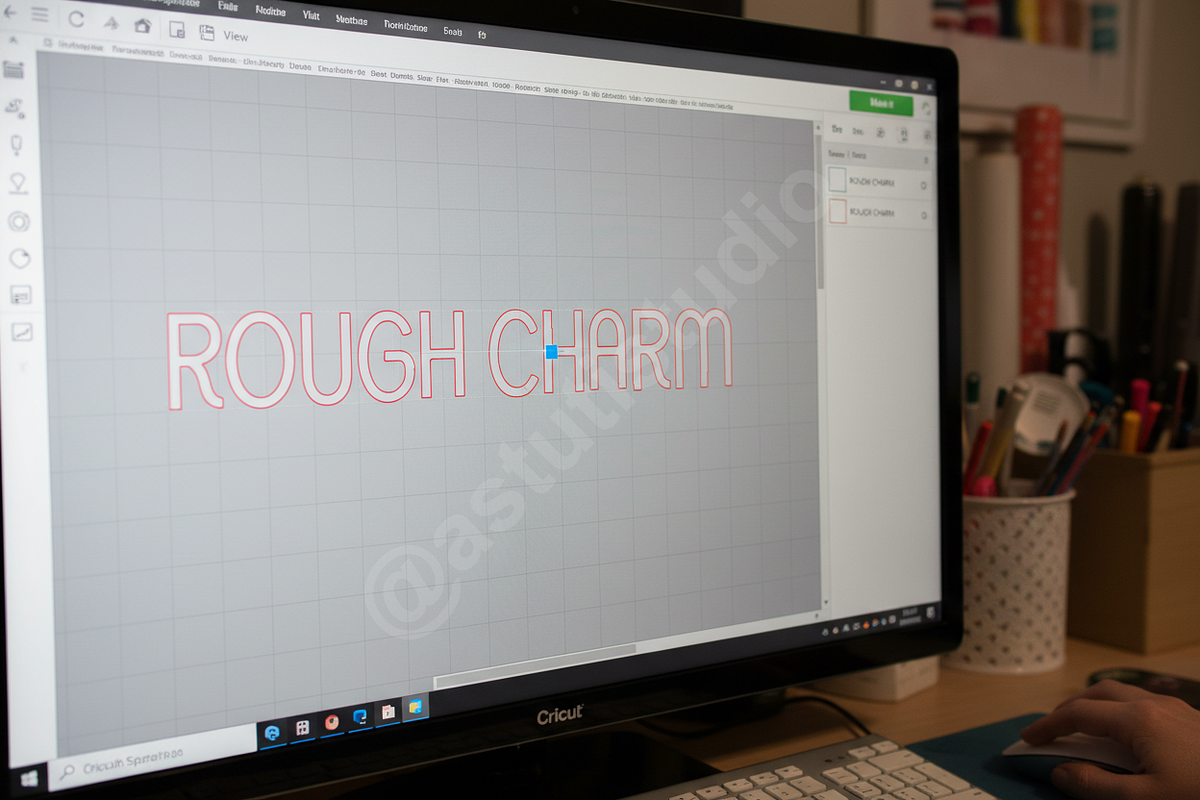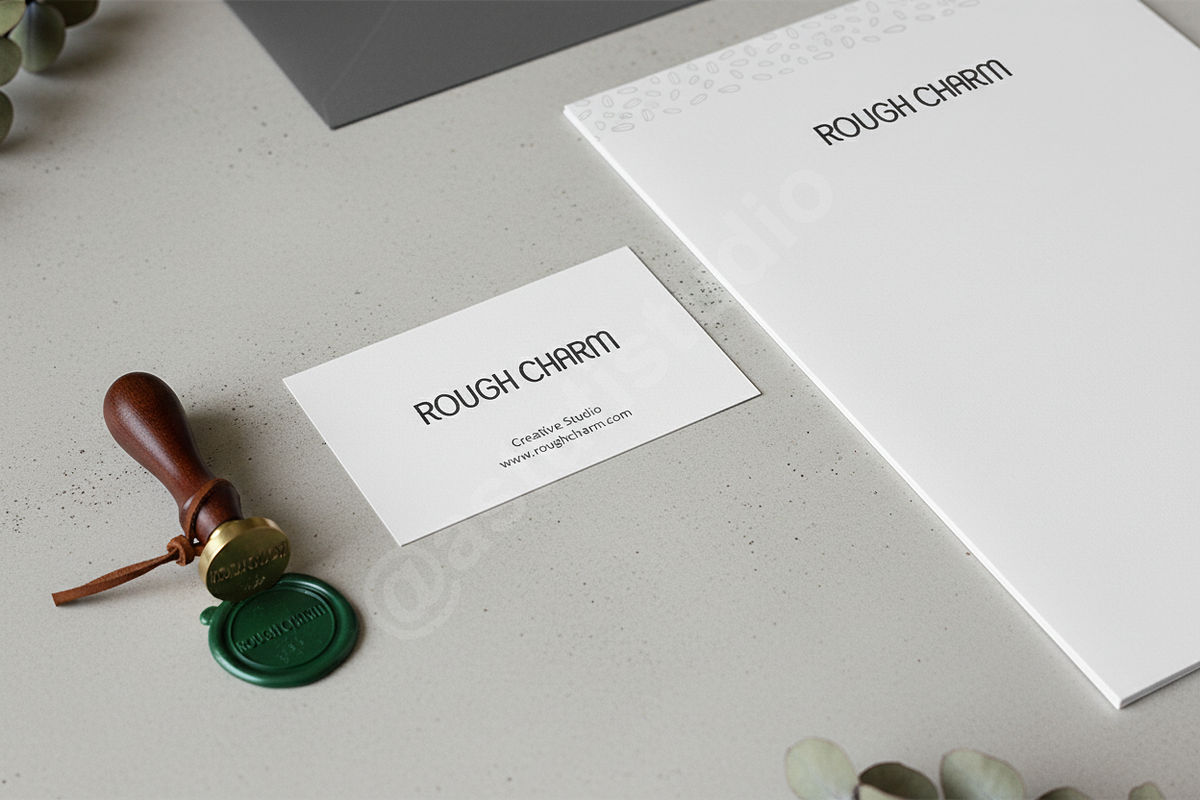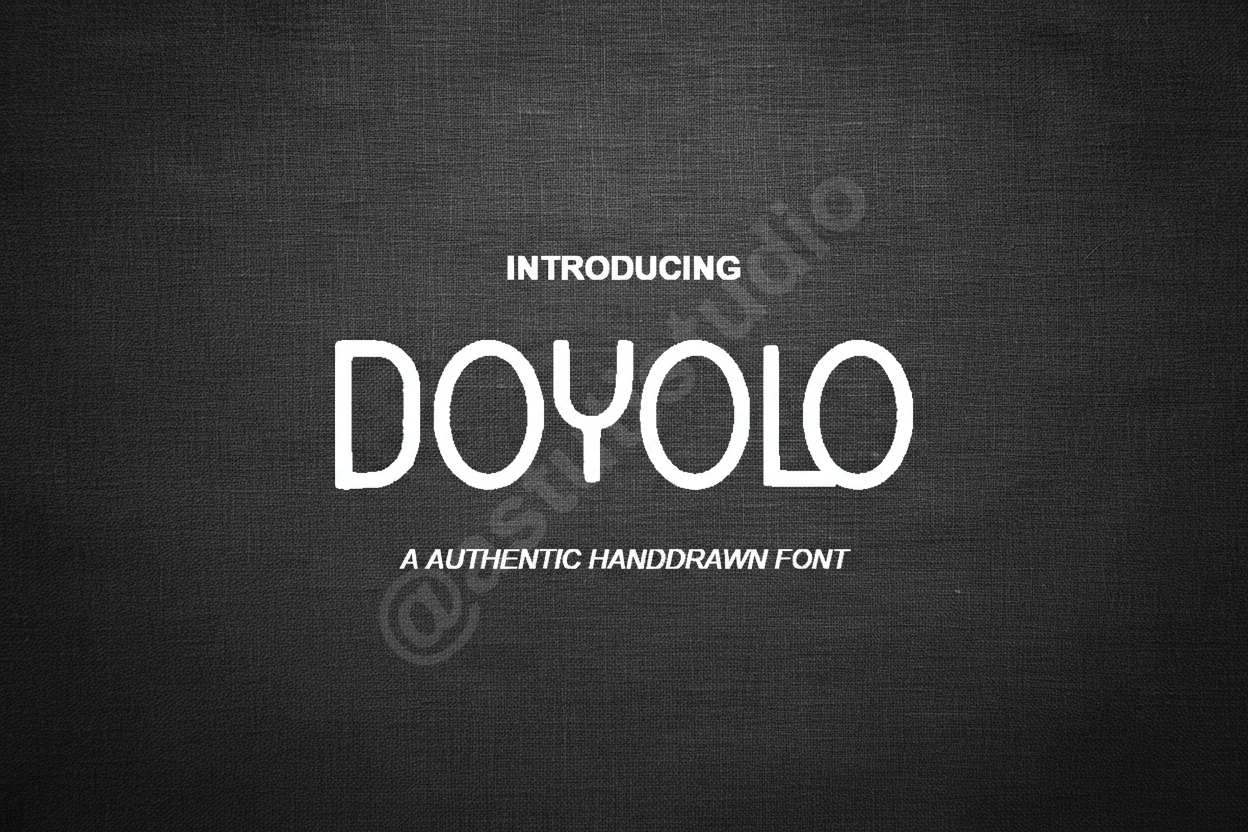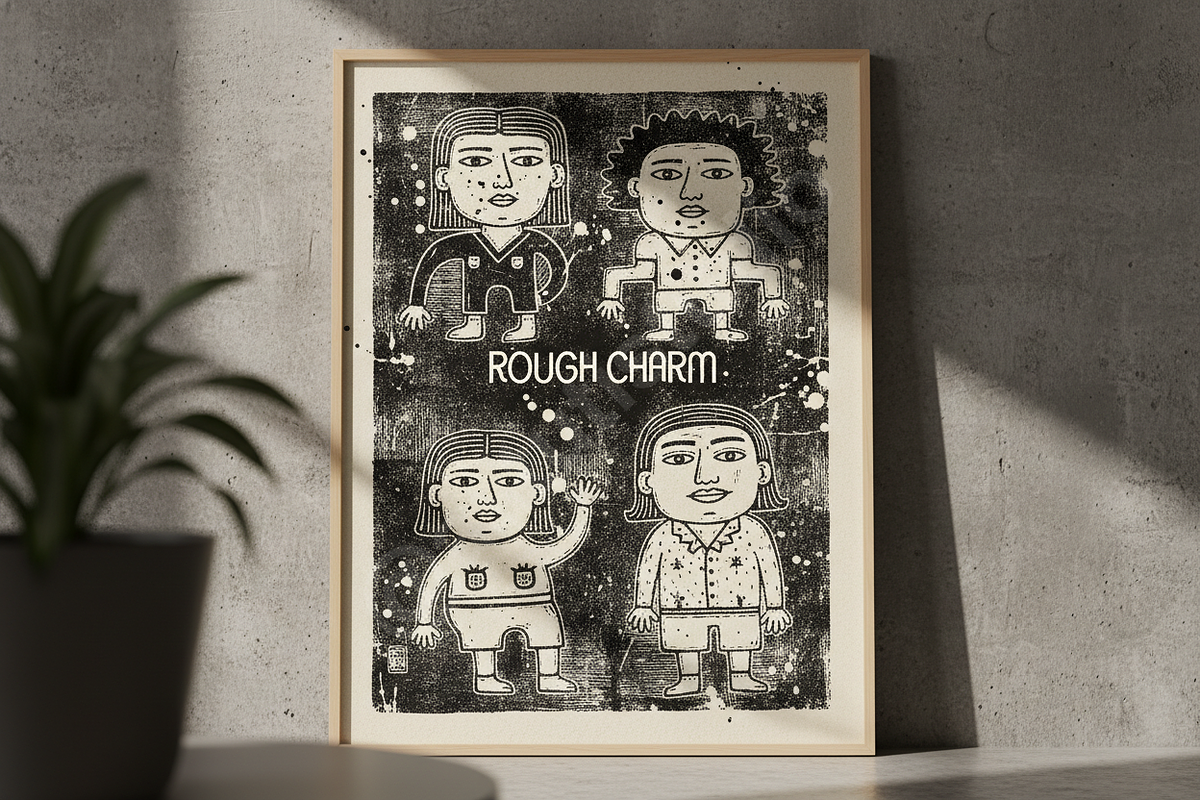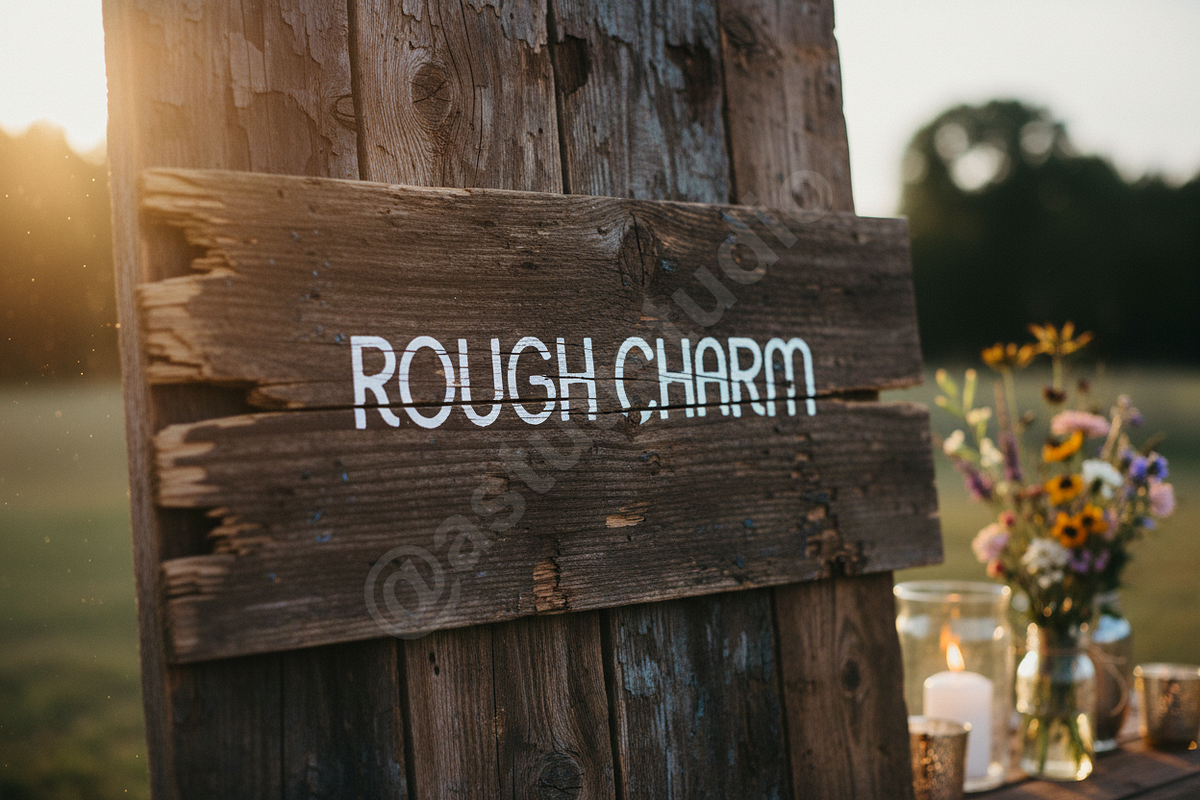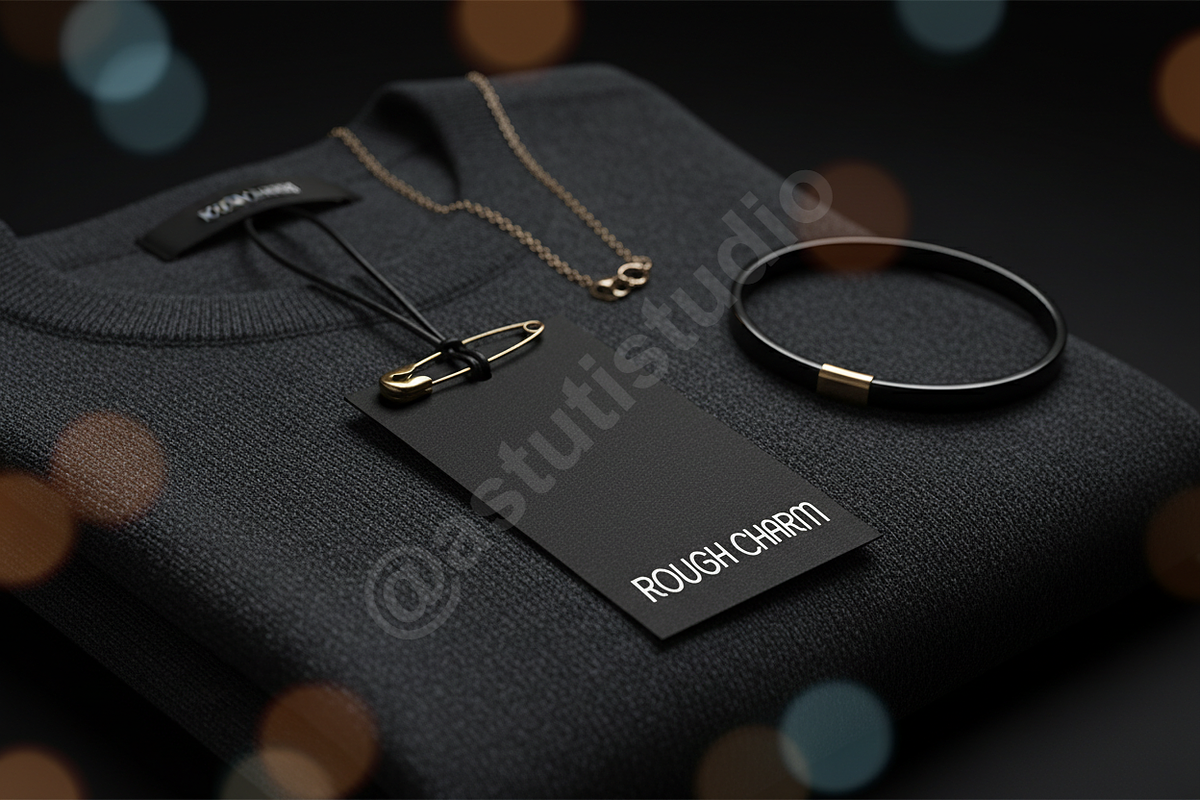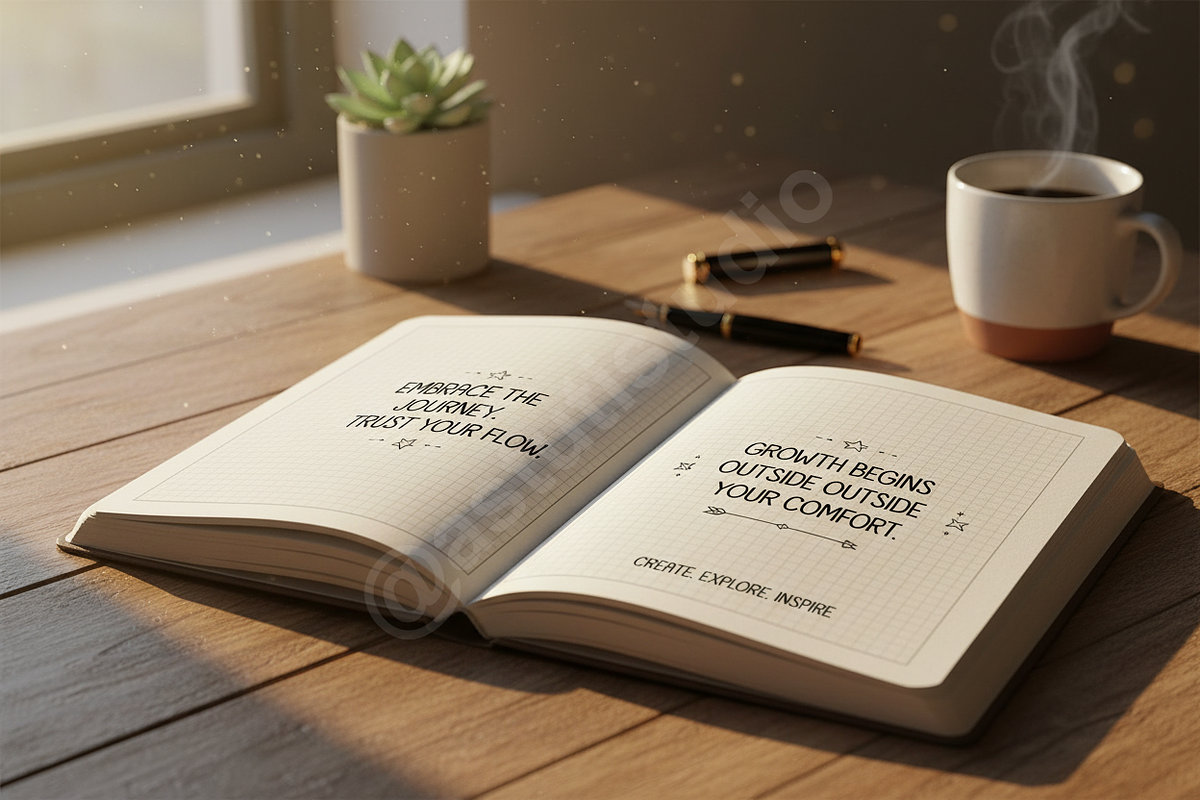
Doyolo – Elegant Serif Font for Luxu
Introduction:
Introducing Doyolo, an exquisitely crafted serif font designed to infuse your projects with unparalleled sophistication and timeless elegance. Doyolo embodies a premium aesthetic, meticulously sculpted for discerning creatives seeking to elevate their brand presence. This typeface is the quintessential choice for luxury branding, high-end editorial layouts, refined packaging, and captivating social media campaigns that demand a touch of class and distinction.
- Luxurious Serif Design: A classic yet contemporary serif structure, perfect for conveying prestige and refinement.
- Optimal Readability: Engineered for clarity across various applications, from headlines to body text.
- Versatile Application: Seamlessly adaptable for print and digital media, ensuring a consistent brand voice.
- Multilingual Support: Extensive character set to cater to a global audience.